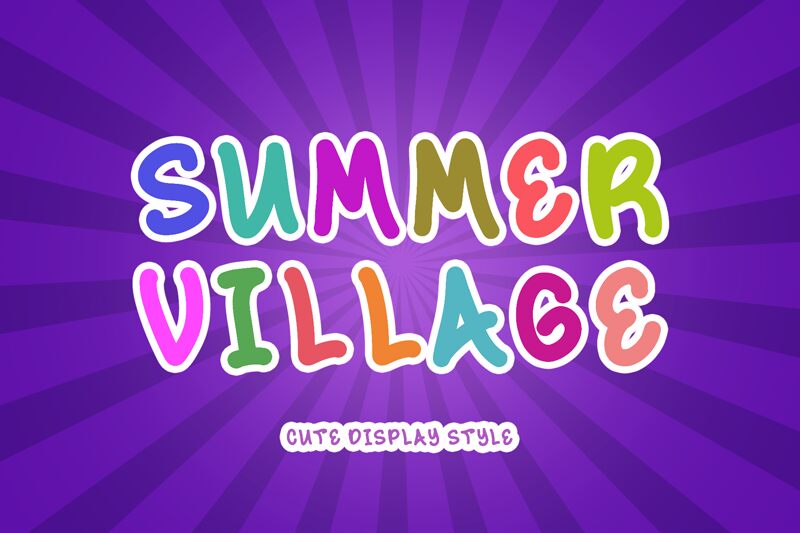
Summer Village font by Yoga Letter is a free comic font bursting with bubbly charm and youthful energy. This vibrant typeface captures an informal and colorful essence, bringing a cheerful tone with its whimsical letter design. It manifests contemporary artistry that can perfectly fit whenever you need new resources filled with positivity.
Its applications can include logotypes, branding, social media images, children’s books, comic strips, typography posters, promotional ads, events flyers, greeting cards, packaging, UX, UI, or web design. You can even try using it in fashion clothing design – especially t-shirt design – or in gift cards and scrapbooks.